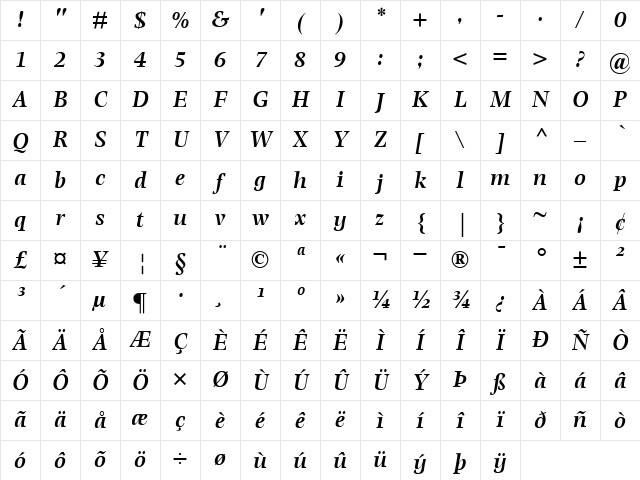
Design Context for PhotinaMT-SemiBold
PhotinaMT-SemiBold is a composed and adaptable typeface that performs quietly and consistently across a wide range of design contexts. The slanted form adds forward momentum and visual energy. Its bold stroke weight gives it real presence on the page.
Pro Tip: Use PhotinaMT-SemiBold for emphasis, pull quotes, and subheadings where its slanted energy can add rhythm to the layout.